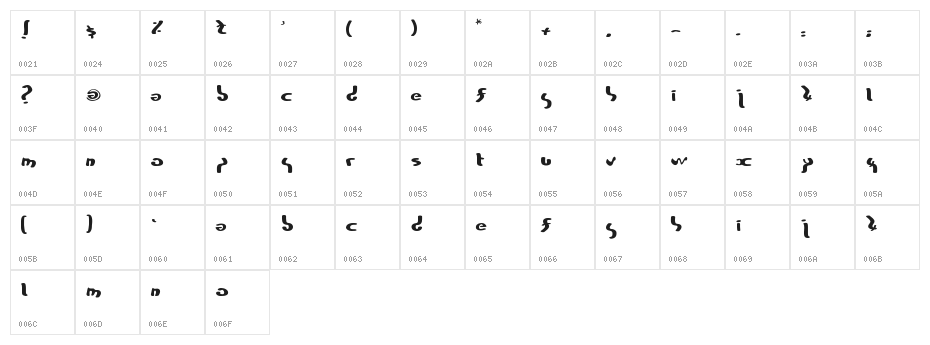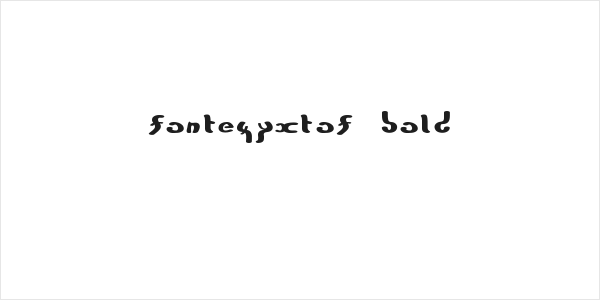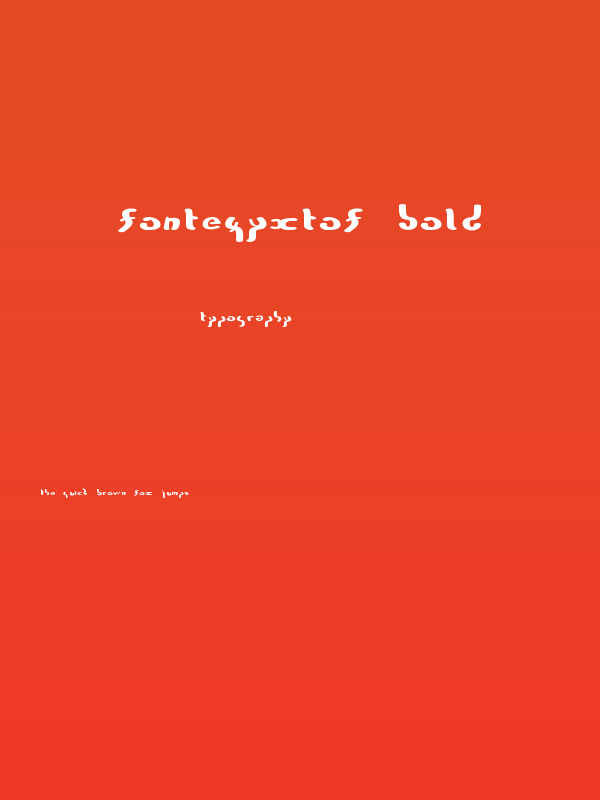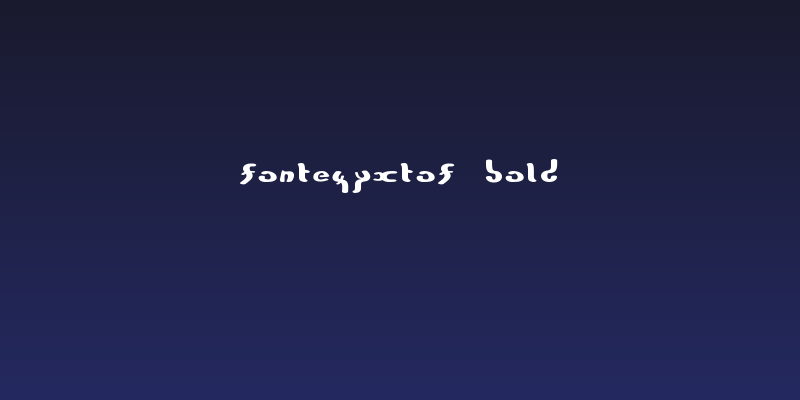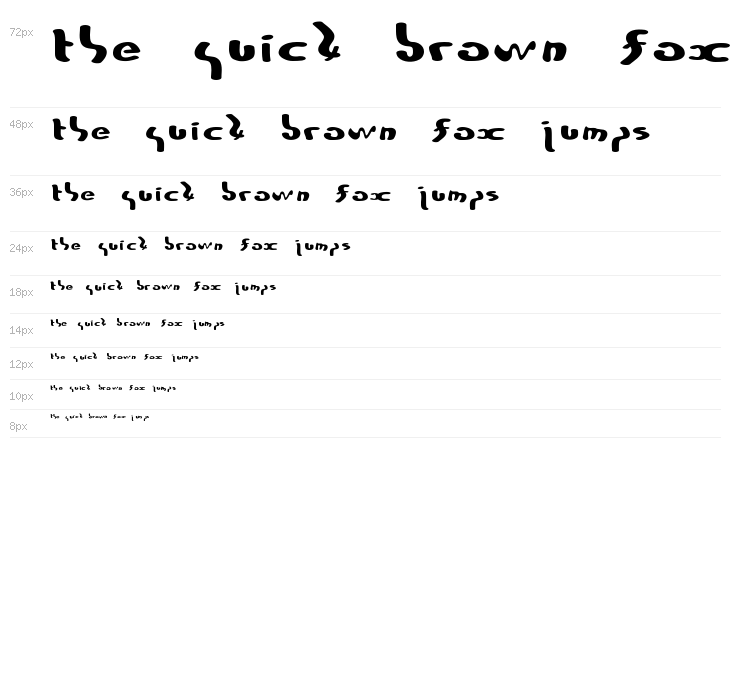
FonteZyxTof Bold Font
This font features a unique and artistic design with a playful, almost whimsical character. The letters are bold and rounded, with a distinct flow that gives them a handwritten feel. The strokes are thick and consistent, providing a strong visual presence. The characters have a slightly irregular shape, adding to the font's charm and making it stand out. The overall style is modern yet playful, suitable for creative projects that require a touch of personality.
Overall StylePlayful, Artistic
Use CaseHeadlines, Logos, Creative projects
Proposed ProjectsIdeal for children's books, creative posters, playful branding, and artistic invitations.